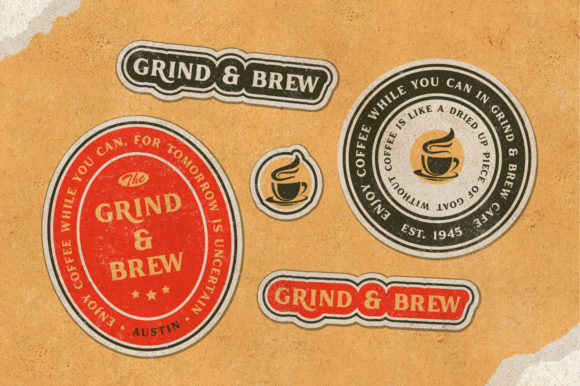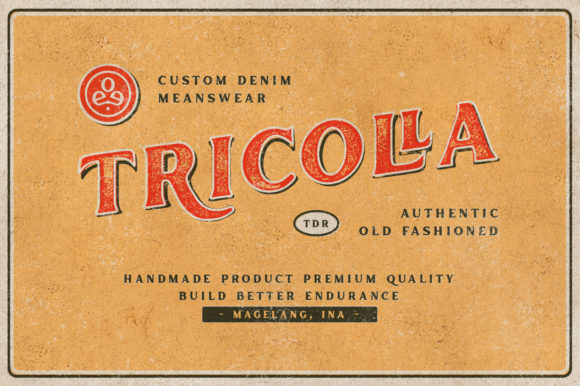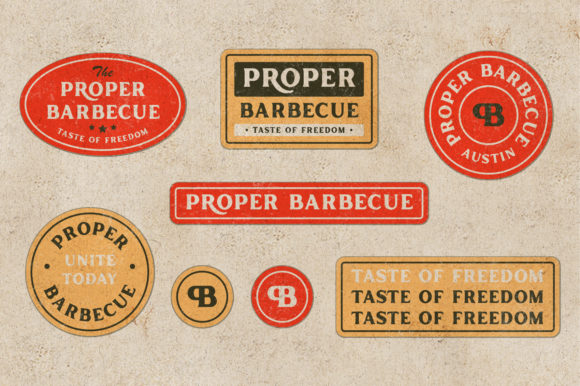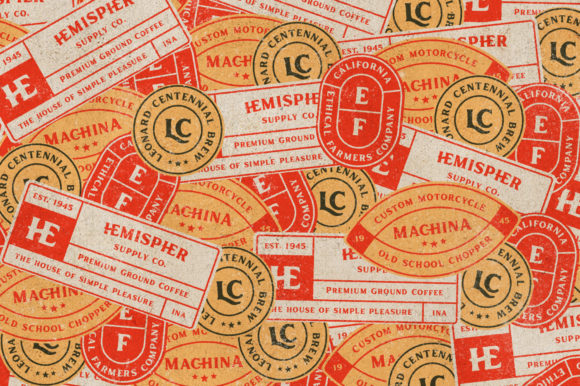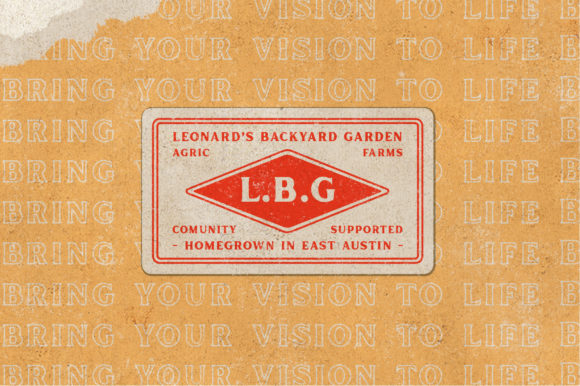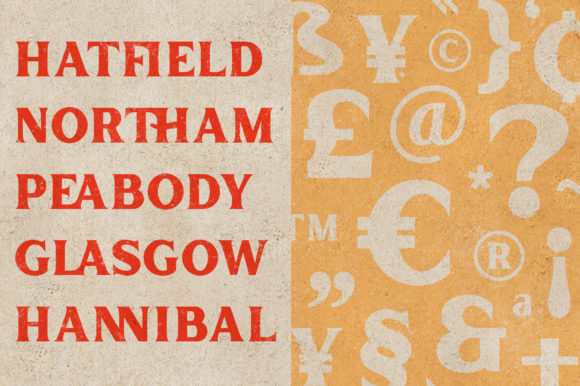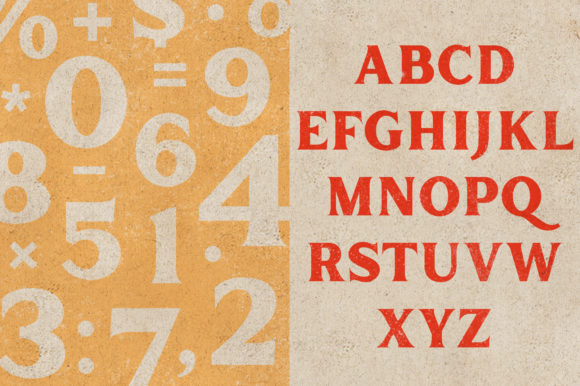
Inlander Font
Inlander is a unique and interesting display font. A little bit quirky, this font is a great choice for a wide variety of contexts!
The Inlander matches applies in some designs such as the logotype, posters, labels, badges, packaging, branding, and more custom designs. The features all-caps, numeral, punctuation & symbol, ligatures, multilingual support, PUA encoded.